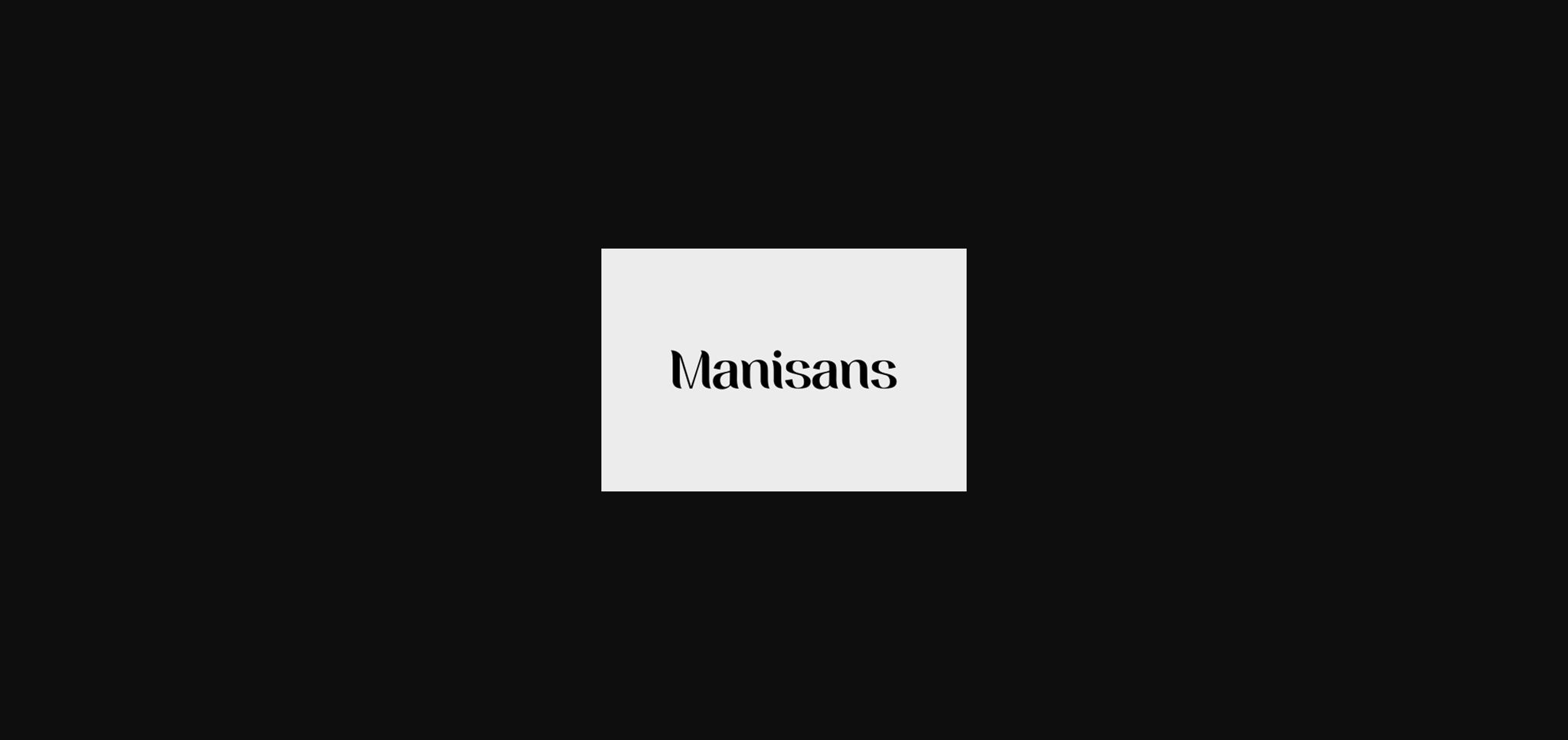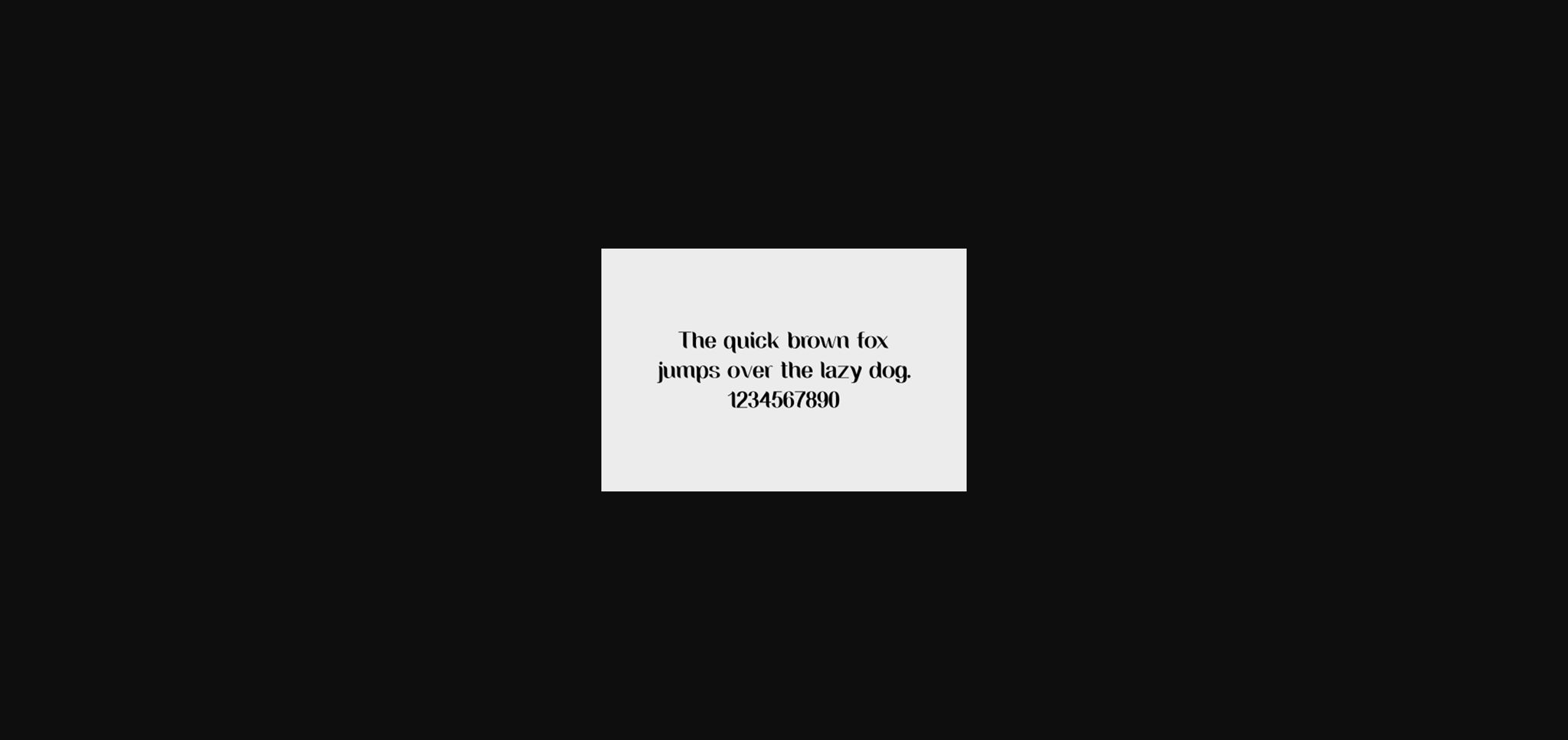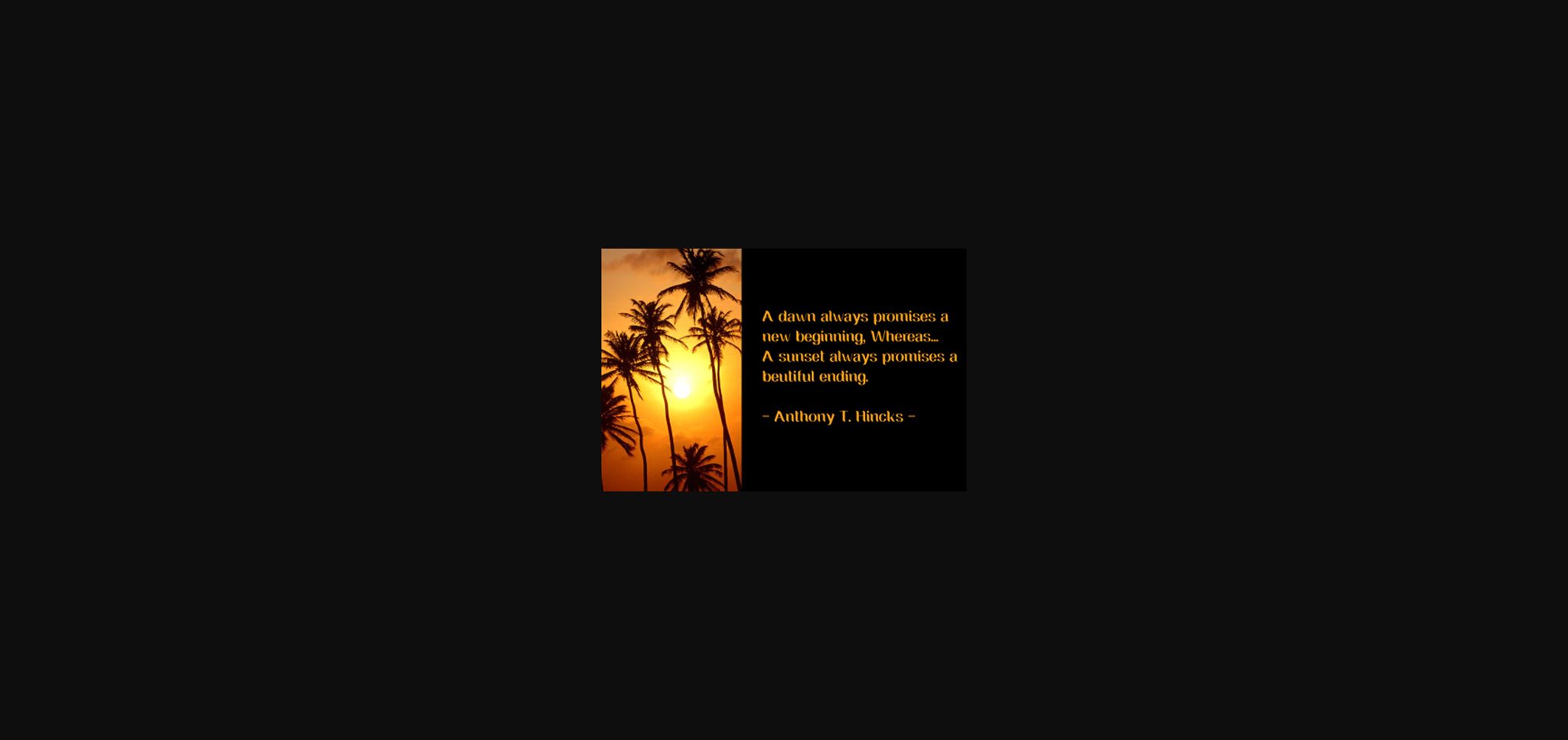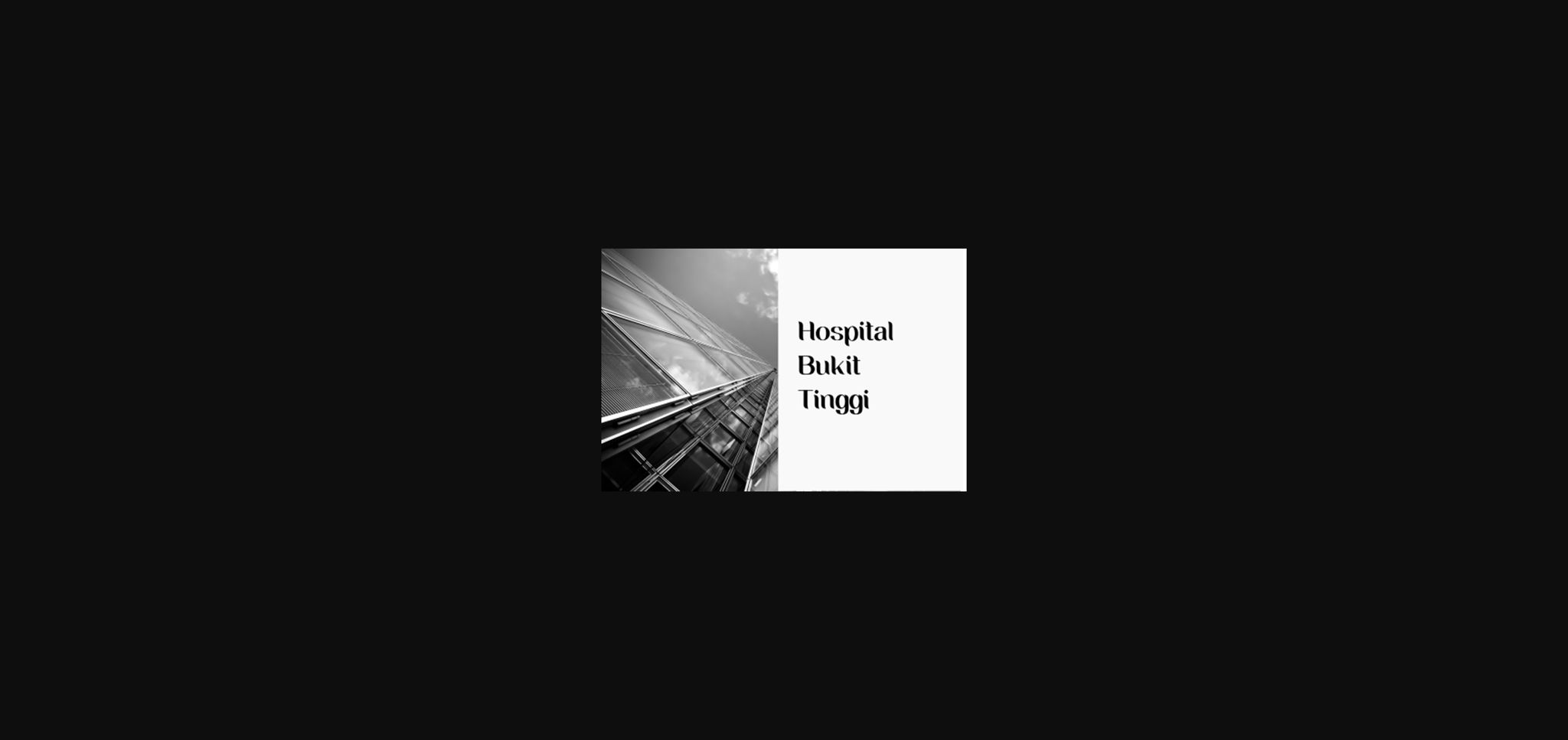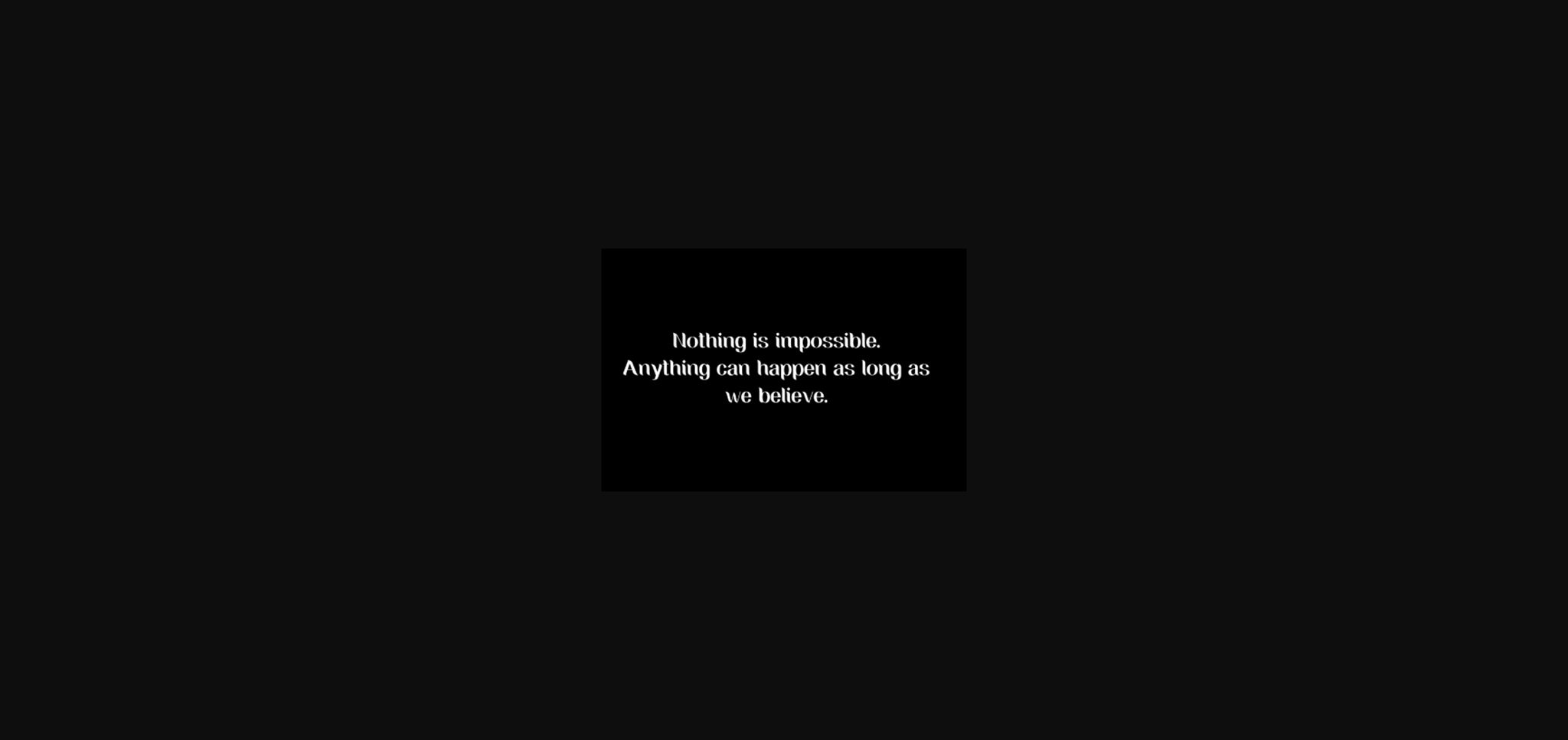
HomeSans Serif FontsManisans Font Sans Serif Fonts Manisans Font FacebookXPinterestWhatsApp 1 of 7 ... Manisans Font Poster 2... Manisans Font Poster 3... Manisans Font Poster 4... Manisans Font Poster 5... Manisans Font Poster 6... Manisans Font Poster 7... About Manisans Font Manisans is a modern sans serif typeface with a geometric touch. Get inspired by its contemporary coolness! DOWNLOAD NOW People also explored Earliest Signature Font White Allies Font Mixgrund Font Homeschool Font Simple Book Font Neptunite Font Cameraman JNL Font Bimitra Font Esteemed Font 263 0 TagsManisans Font Previous articleXenitt FontNext articleEvogria New Font LEAVE A REPLY Cancel reply Comment: Please enter your comment! Name:* Please enter your name here Email:* You have entered an incorrect email address! Please enter your email address here Website: Save my name, email, and website in this browser for the next time I comment. Personal Use Free Fifty Five Personal Use Free Read more about this font Zojihun Personal Use Free Read more about this font BD AsciiMax Personal Use Free Read more about this font Chandella Personal Use Free Read more about this font BLOG Elegant Wedding Invitation Fonts – Handwritten & Script Fonts Elegant Wedding Invitation Fonts Your wedding day is one of the most important moments of your life, and every detail matters—including your invitation design. Our... Best Fonts for T-Shirt Design – Top 2025 Picks Free Fonts Risk: Why Free Fonts Can Be Dangerous for Designers The 10 Best Handwriting Fonts to Add Personality to Your Designs